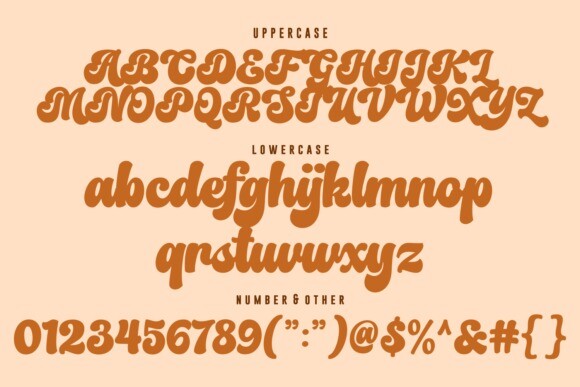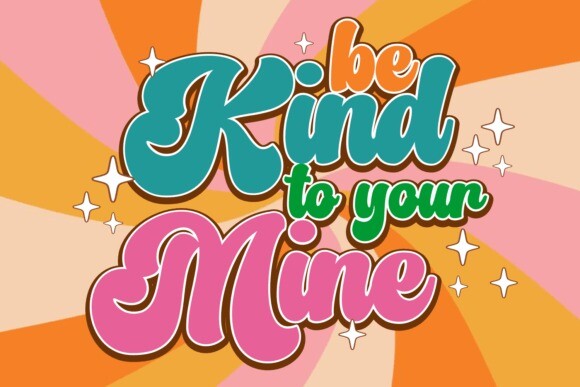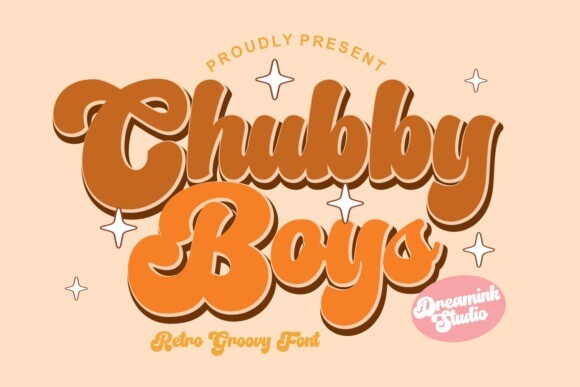
Chubby Boys Typeface
Chubby Boys Font is a childish, easy-to-read display font that conveys impeccable friendliness. Whether you’re using it for crafts, digital design, presentations, or making greeting cards, this font has the potential to become your favorite go-to font, no matter the occasion!